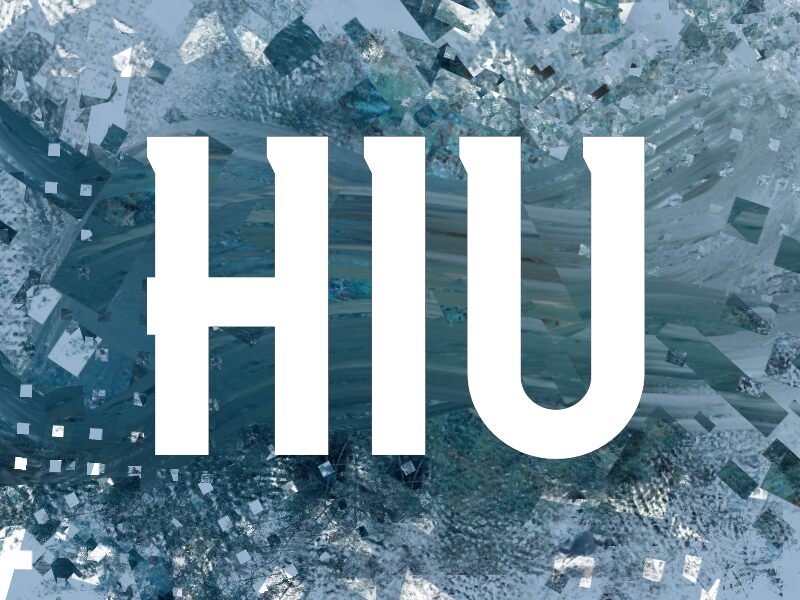
HIU
Hiu font by wep is a modern, clean, and condensed sans-serif typeface free for personal use. Featuring minimalistic letterforms with various geometric shapes present in both uppercase and lowercase characters. In other words, Hiu is a contemporary reading-friendly font to include in most design projects.